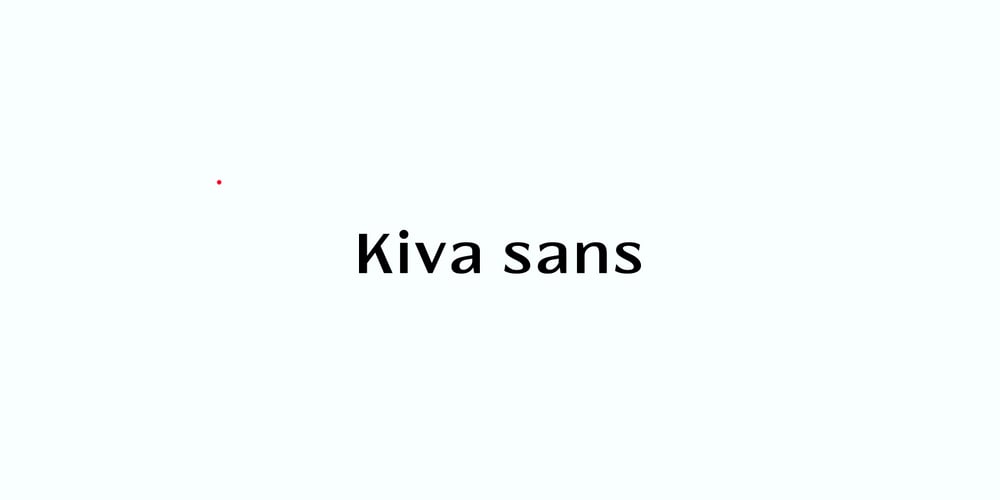
Kiva Sans
Kiva Sans font
Kiva Sans Font Family was designed by Igor Kosinsky and published by Kosinsky. Kiva Sans contains 4 styles and family package options. Kiva sans – it is a modern grotesque with open forms and visible contrast. The font is built according to the experimental principle, which, to some extent, makes it stand out. Perfect for both small text and headings. The font supports Cyrillic and Latin. Developed in 2021.